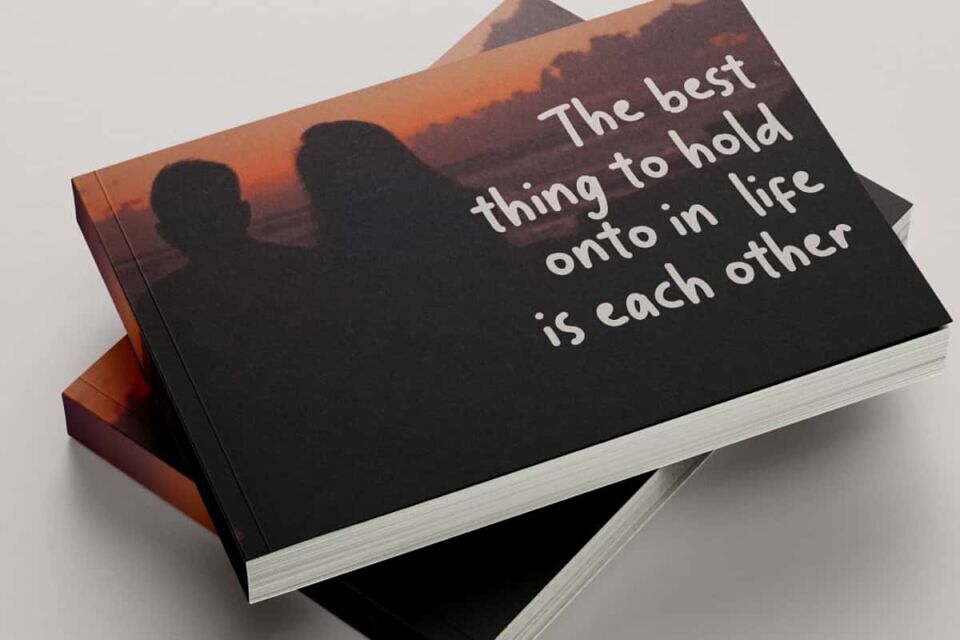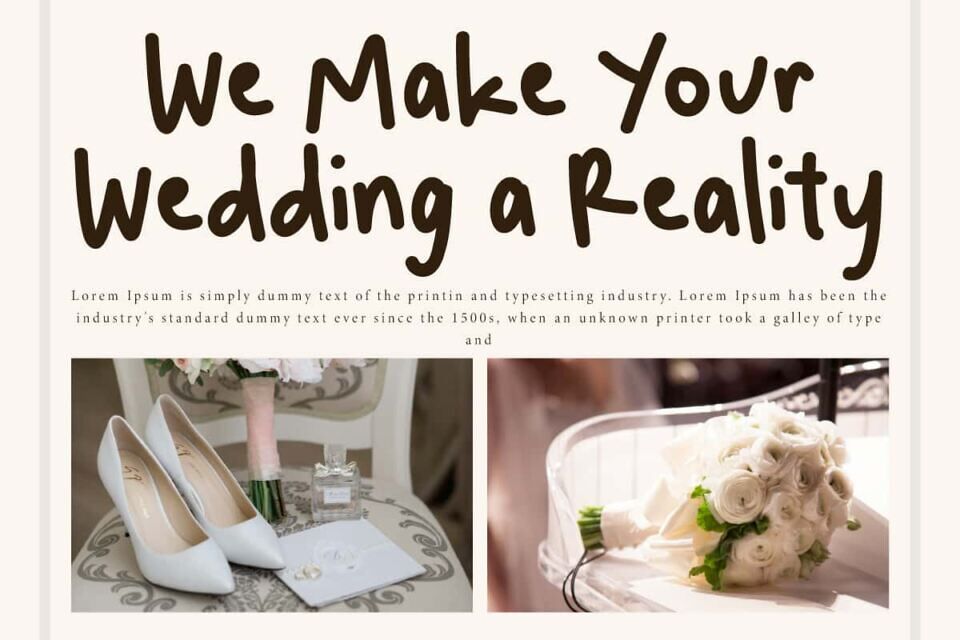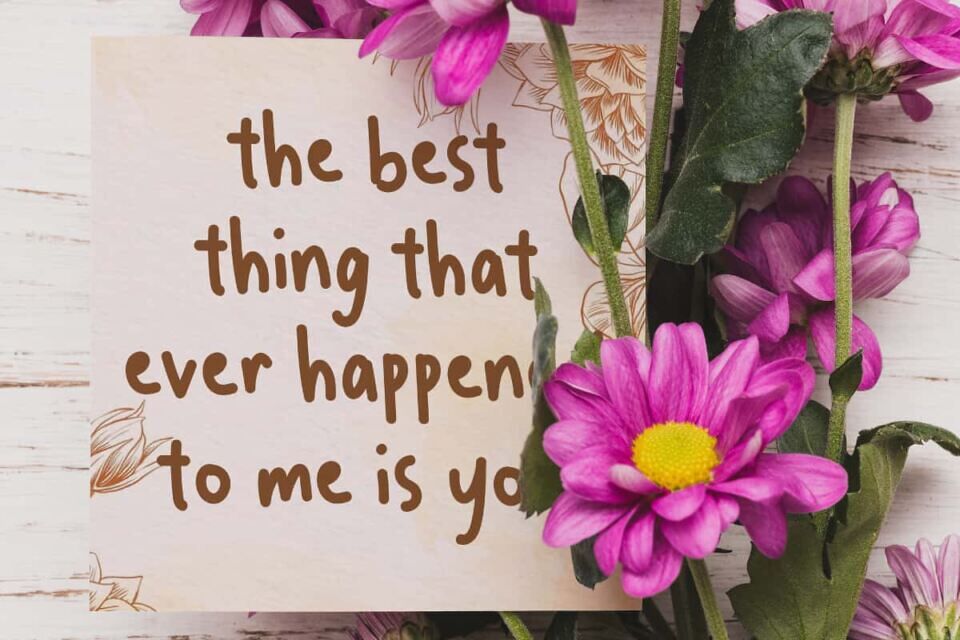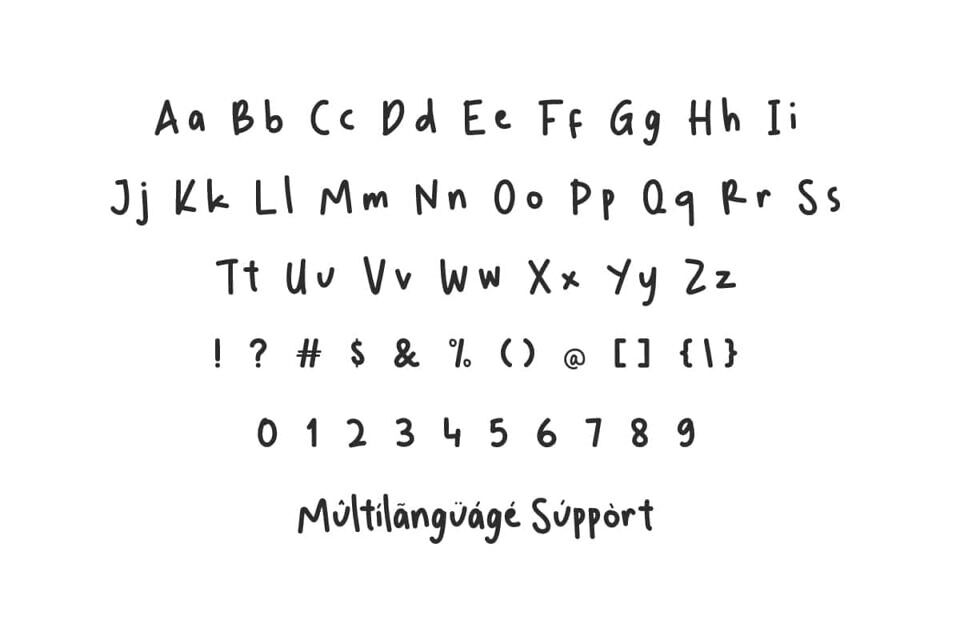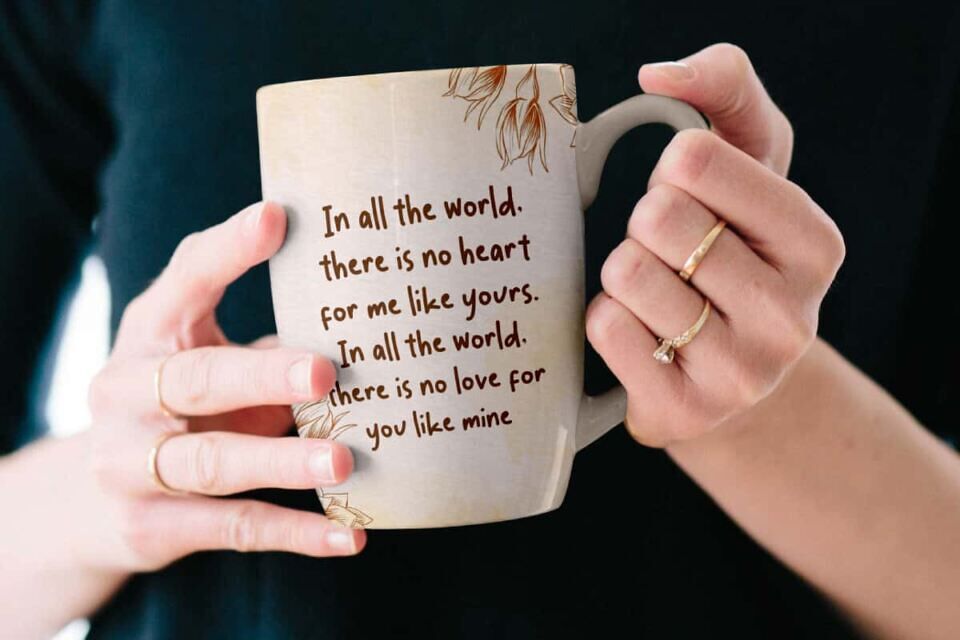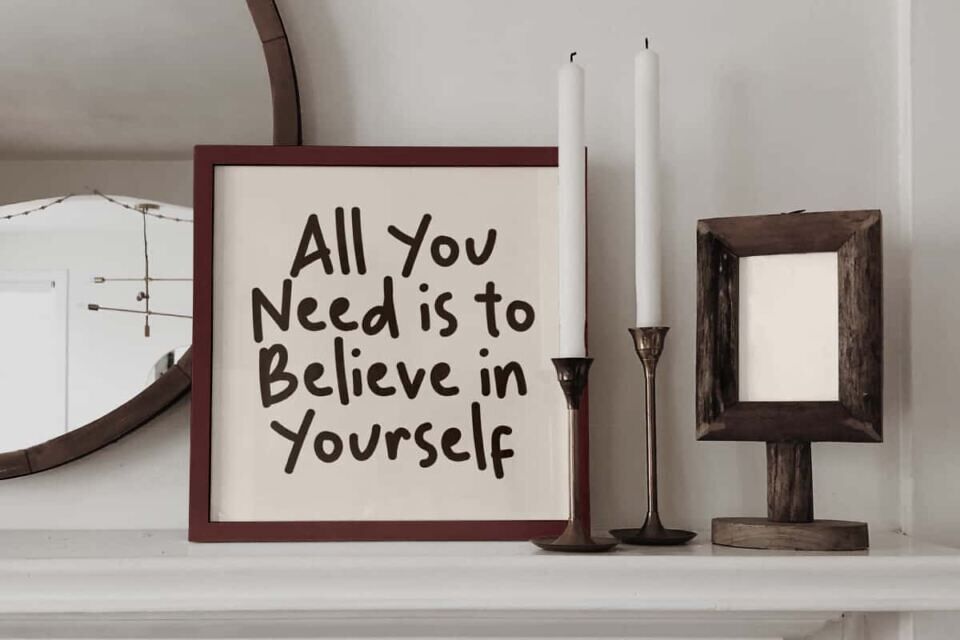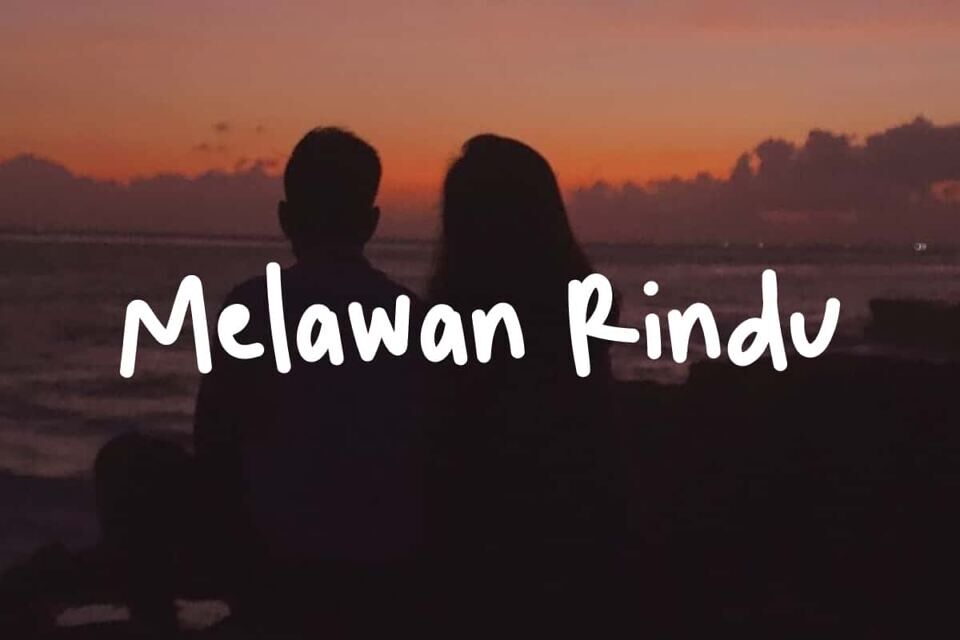
Melawan Rindu Font
Melawan Rindu Font is a fun marker handwriting font with a casual touch, making it look like natural handwriting. Perfect for banners, blogs, brochure, covers, custom mug, flyer, greeting card, headers, label, logos, mockup, social media post, stationery, sticker, template, title, quotes, website, and much more.